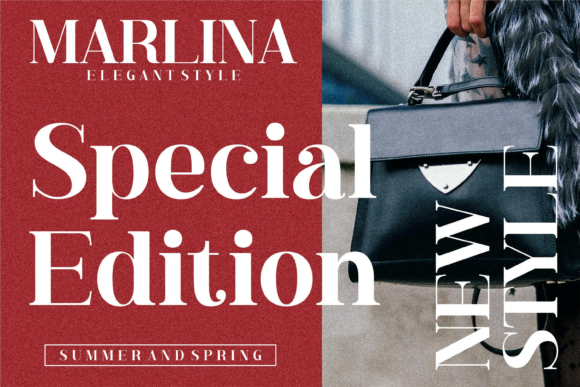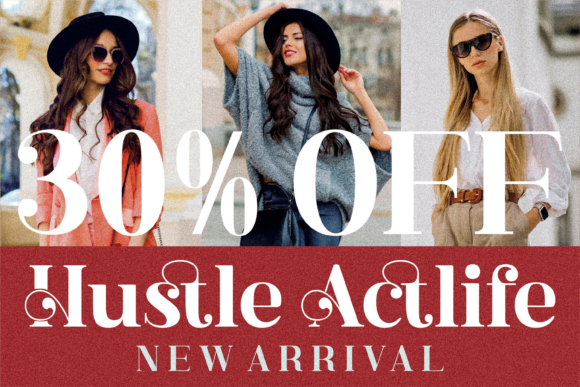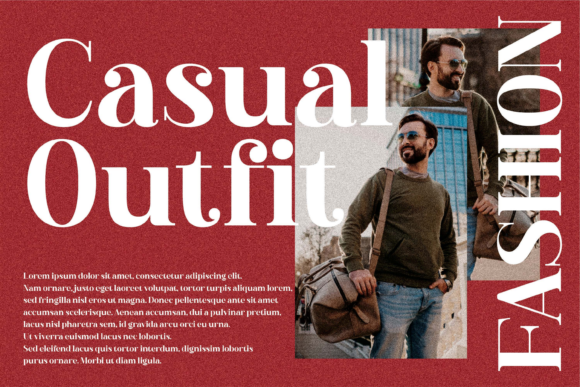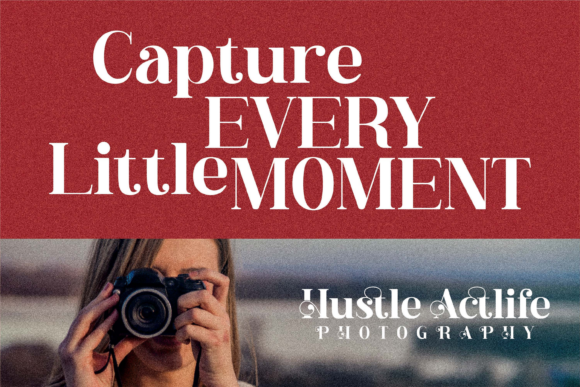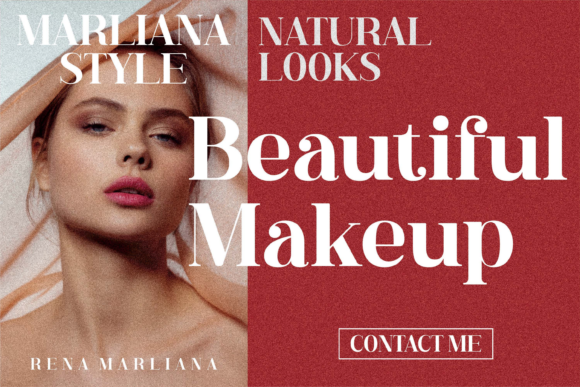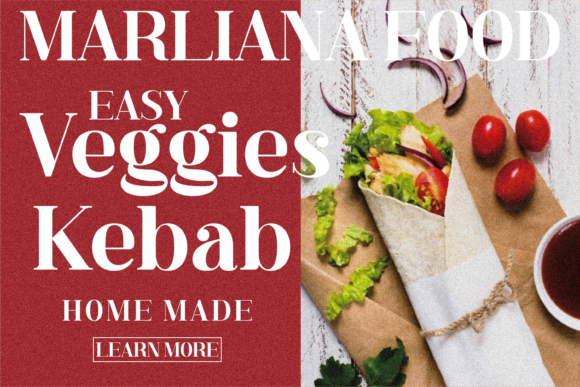
Introduction to Hustle Actlife Font
Hustle Actlife is a bold and fun serif font.
Use it to make your ideas even more realistic and create spectacular designs This font is PUA encoded which means you can access all of the glyphs and swashes with ease.